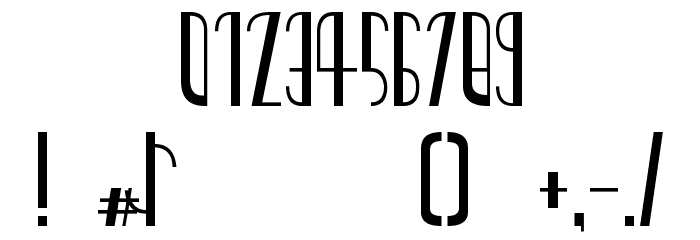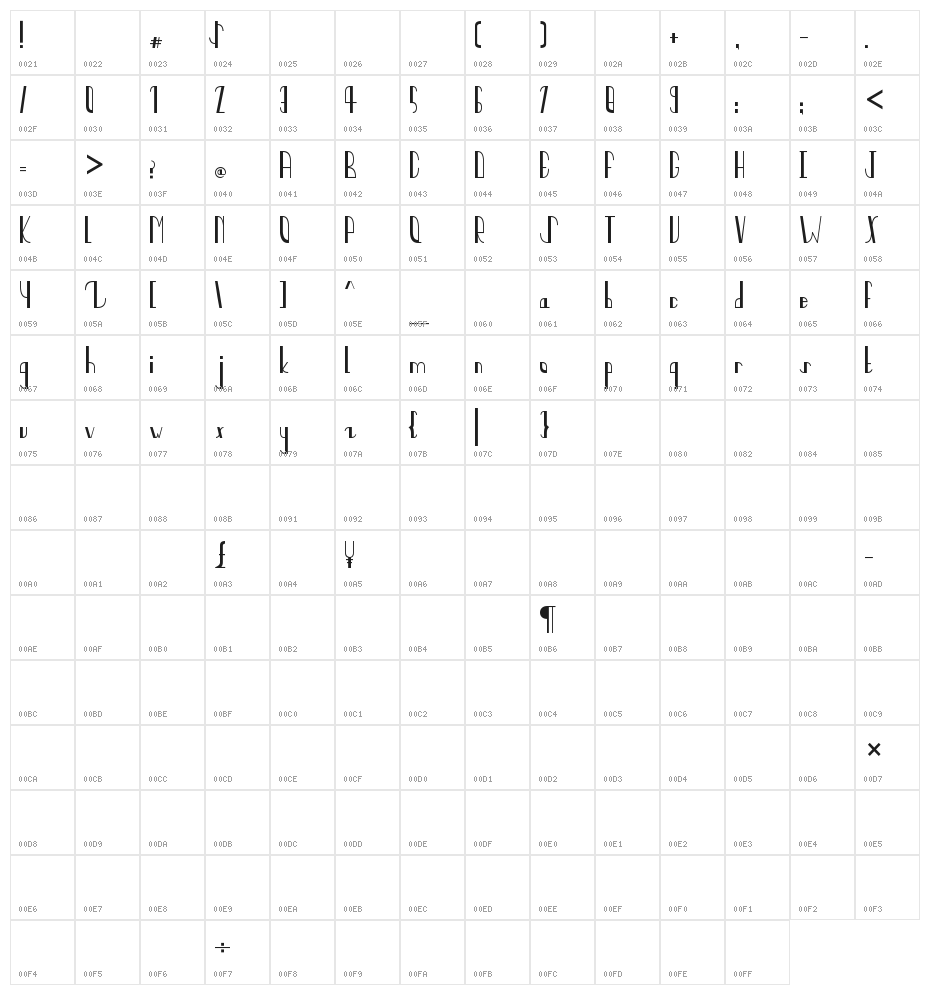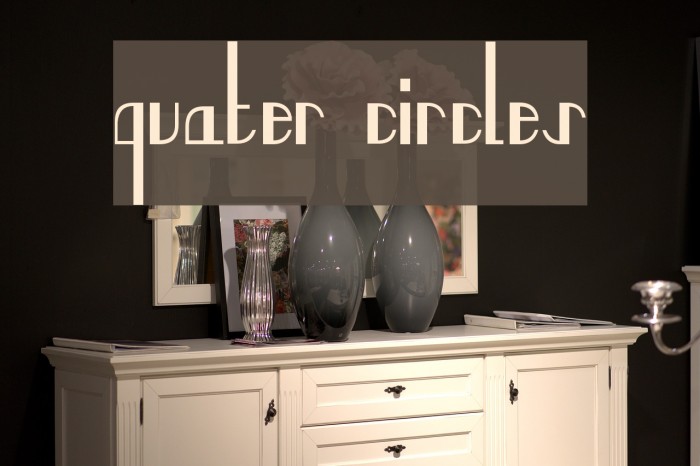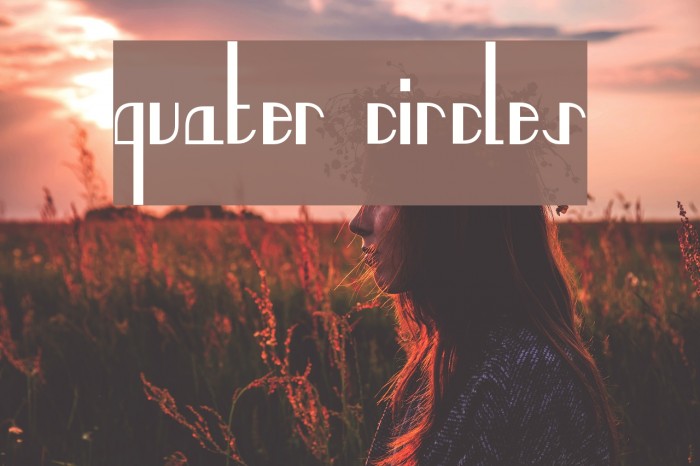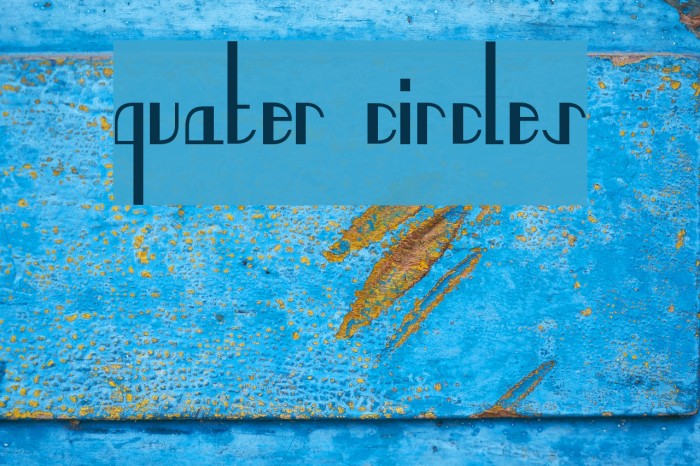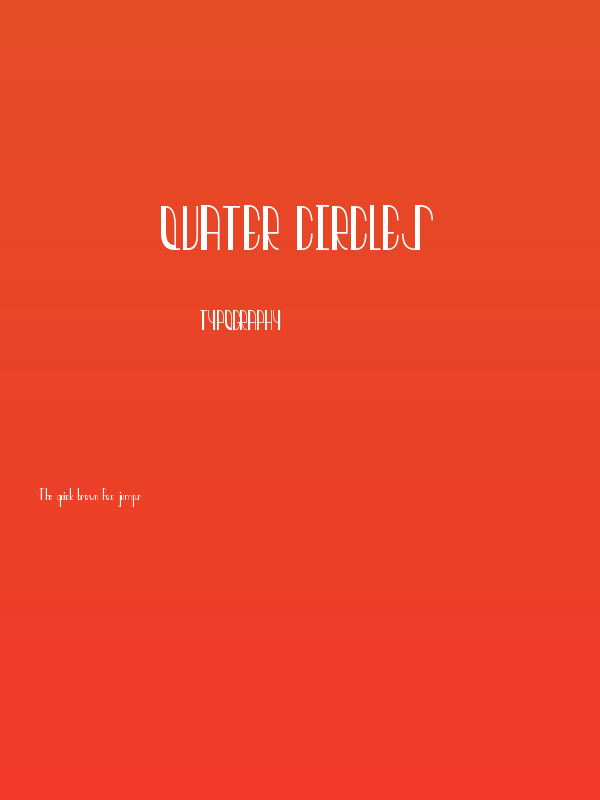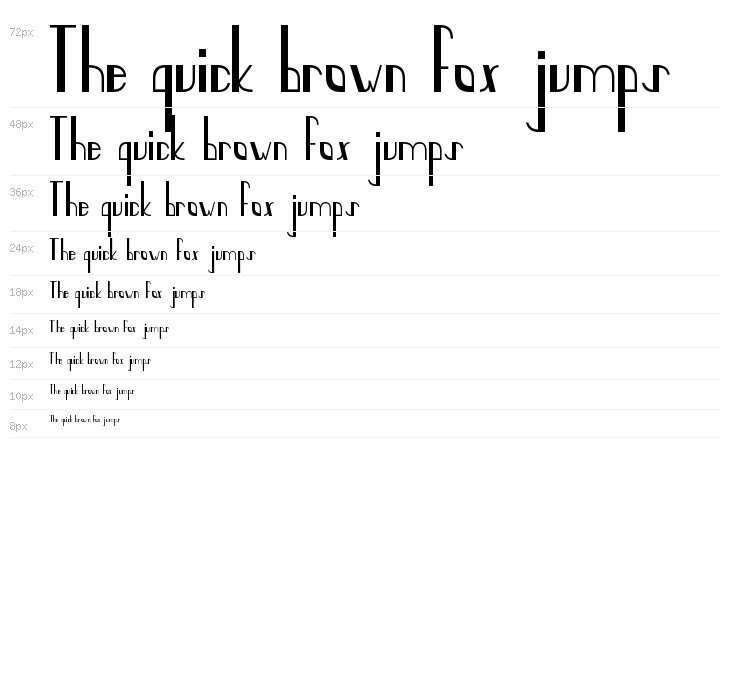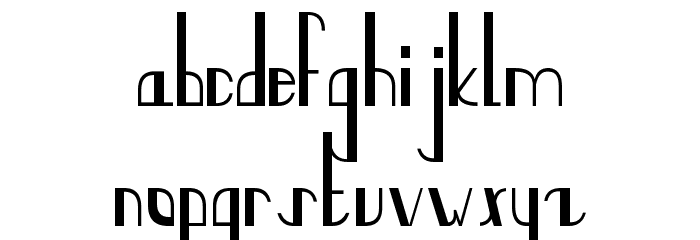
quater circles Font
quater circles Description
This font features a unique and artistic design with elongated and narrow letterforms. The characters have a distinct vertical emphasis, with some letters incorporating subtle curves and angular elements that add a modern flair. The uppercase letters are particularly striking, with a mix of straight lines and gentle curves, creating a dynamic and eye-catching appearance. The lowercase letters maintain the same narrow structure, ensuring consistency throughout the font. Numbers and special characters are designed to complement the overall style, with a playful yet sophisticated look. This font is ideal for projects that require a touch of elegance and creativity.